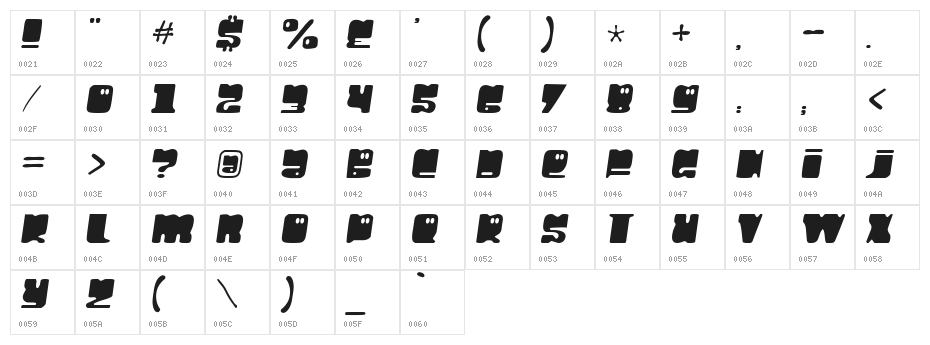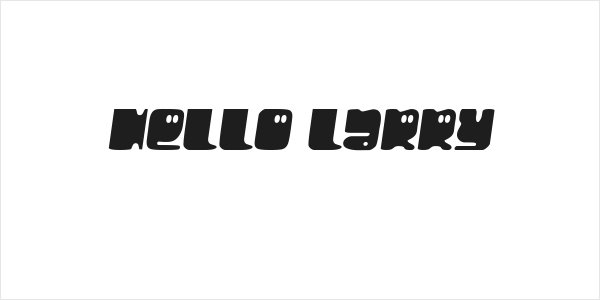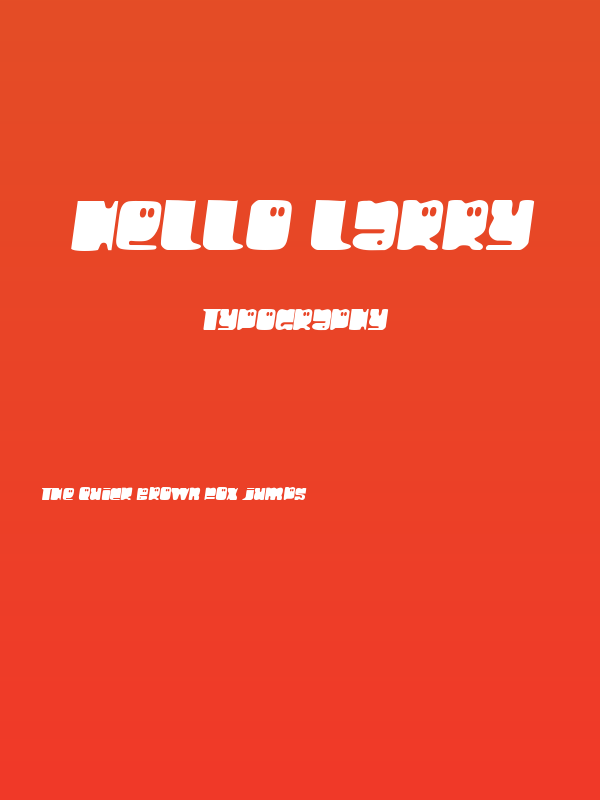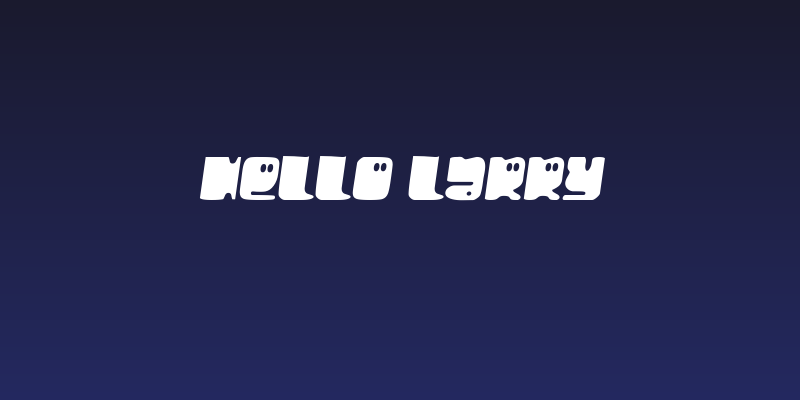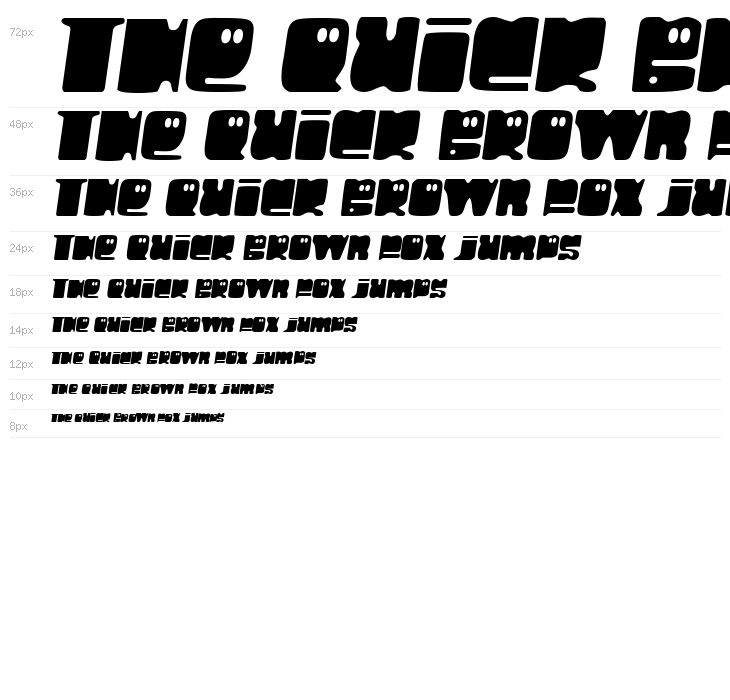
Hello Larry Font
Hello Larry Description
This font features a playful and bold design with a unique, cartoonish style. The characters are rounded and thick, giving them a substantial presence on the page. Each letter has a whimsical quality, with some incorporating small cutouts or accents that add to the font's quirky personality. The numbers and special characters maintain this playful aesthetic, ensuring consistency across all glyphs. This font is ideal for projects that require a fun and engaging visual element, making it perfect for children's materials, playful branding, or eye-catching headlines.